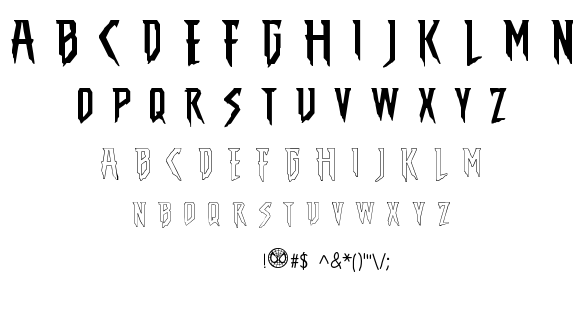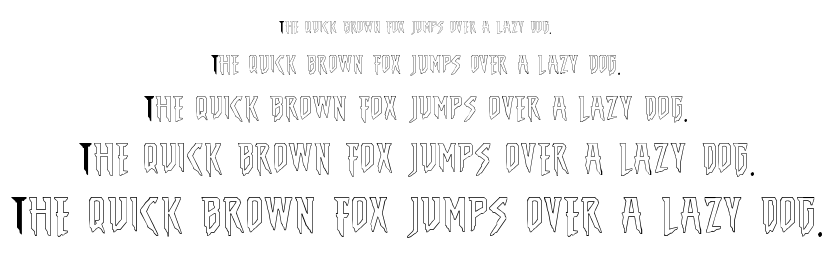
The Amazing Spider-Man font.
I have been wanting to create a Spidey font based on my old Spider-Man Comics from the 1970’s for ages but never got around to it until 2012. So with the latest The Amazing Spider-Man movie due out in July here is my personal look back over the last 50 years of Spider-Man costume logos and a few extras for all you Webslingers out there !!!